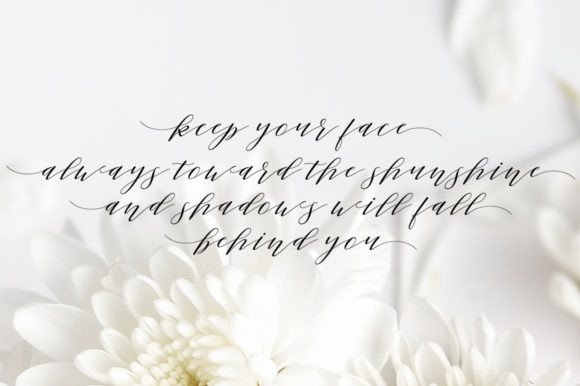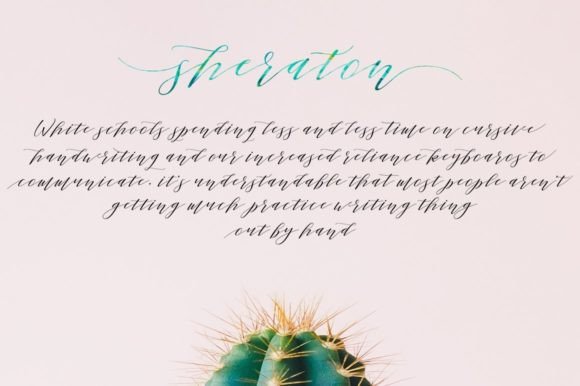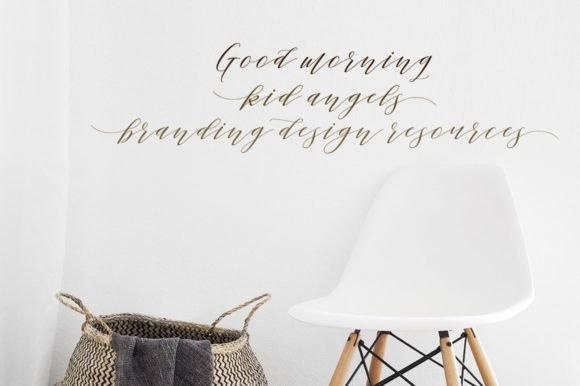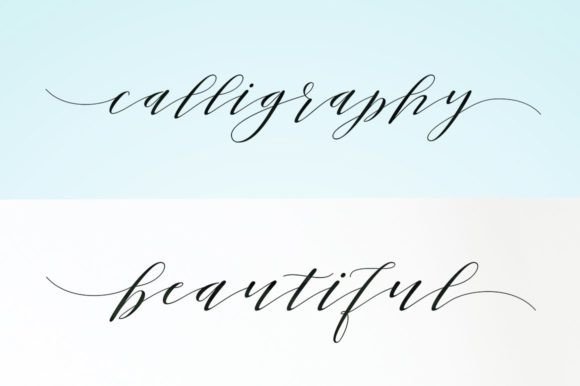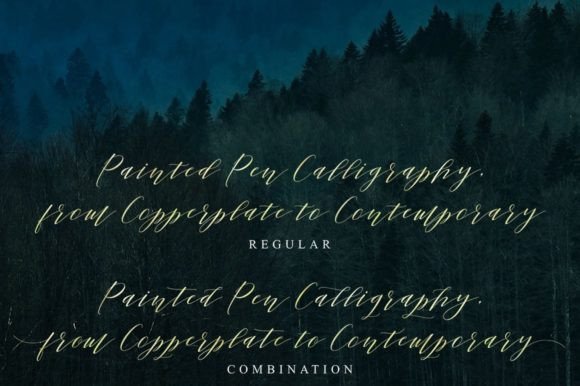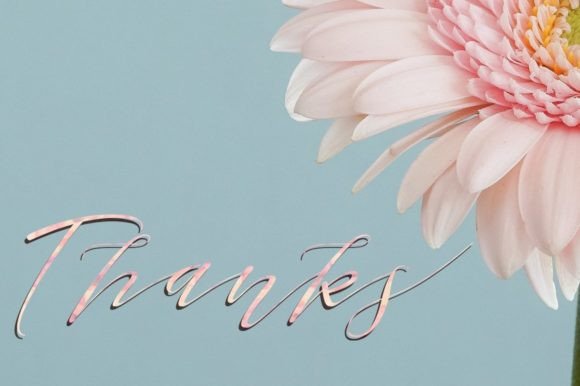
Sheraton Font
About Sheraton Font
“Sheraton” is more than just a font; it’s a lovely and modern calligraphic script that brings versatility to your creative projects. Designed to be a versatile script font, “Sheraton” is suitable for a wide spectrum of applications, from greeting cards to headlines. Its design is guaranteed to infuse a romantic feel into your next project. The added feature of PUA encoding ensures easy access to all glyphs and swashes, enhancing creative freedom.
The loveliness and modernity of “Sheraton” are evident in its calligraphic script design. Each letter is carefully crafted, contributing to an overall aesthetic that is both romantic and contemporary. This makes it an ideal choice for projects that aim to convey a sense of elegance and romance.
The versatility of “Sheraton” shines through in its ability to adapt to various design contexts. Whether it’s gracing a romantic greeting card or making a statement in headlines, this font offers a range of design possibilities. Its romantic feel adds a touch of emotion and sophistication to your projects.
With PUA encoding, accessing all the glyphs and swashes becomes a seamless process. This feature empowers designers to customize and embellish their designs easily, making “Sheraton” a valuable tool for creative expression.
In summary, “Sheraton” is not just a font; it’s a design companion that brings a lovely and modern touch to your creative projects. Let it be the choice for adding a romantic feel to your greeting cards, headlines, and more. With “Sheraton,” every project becomes an opportunity to showcase the beauty of calligraphic script design with a touch of romance.